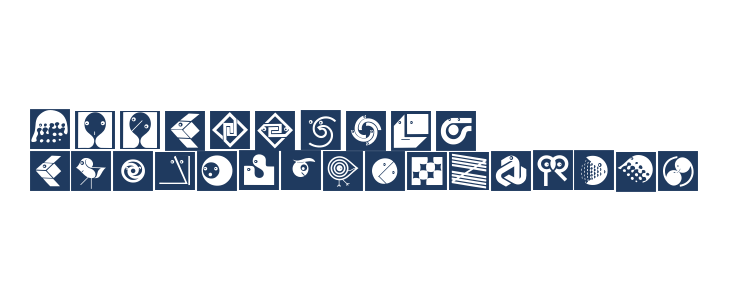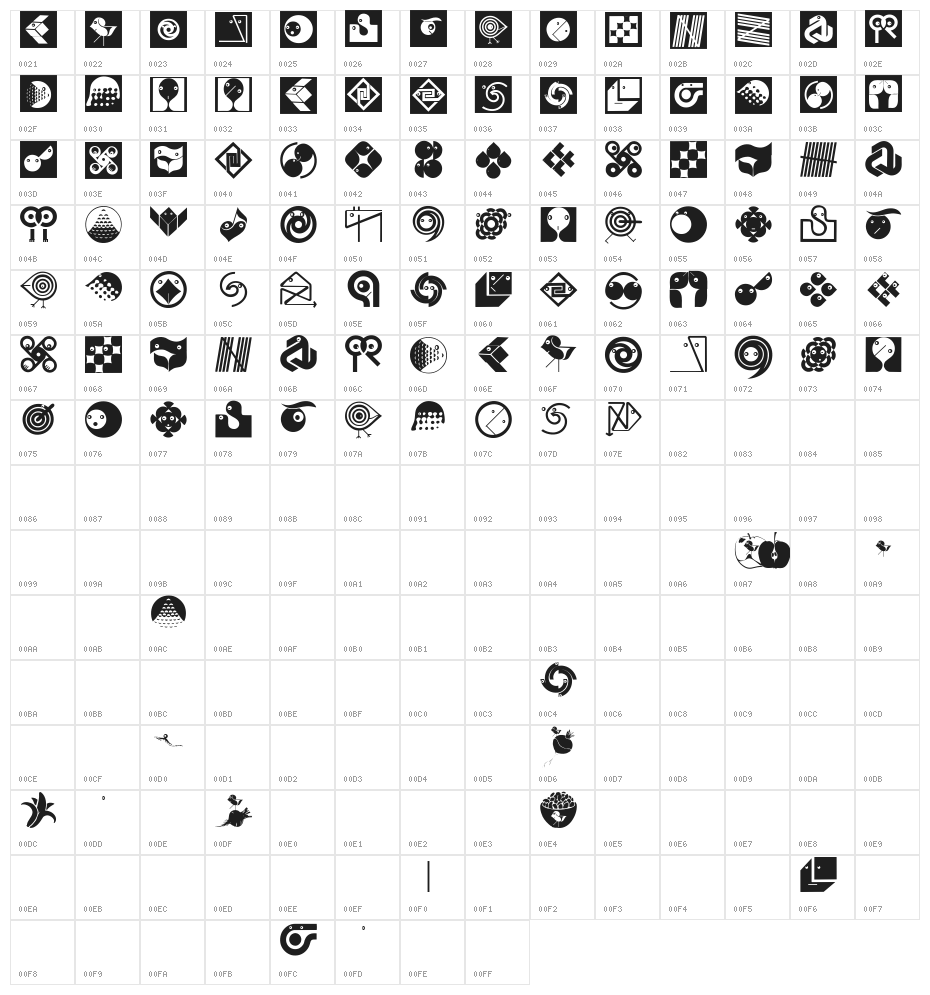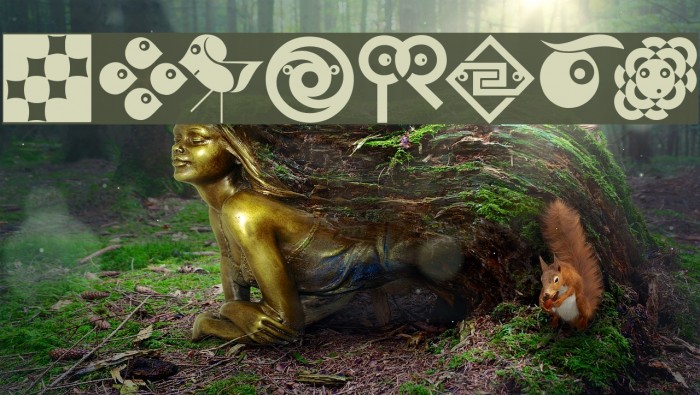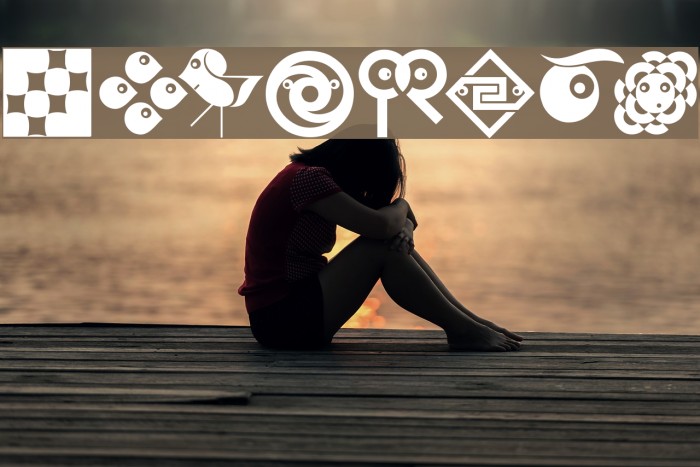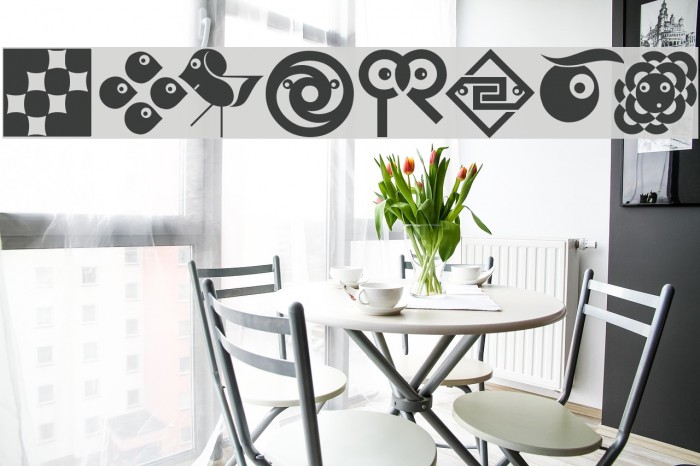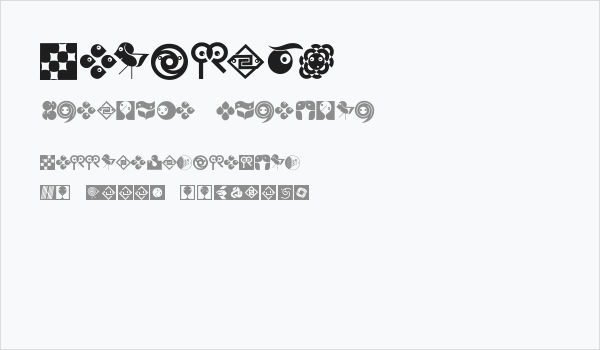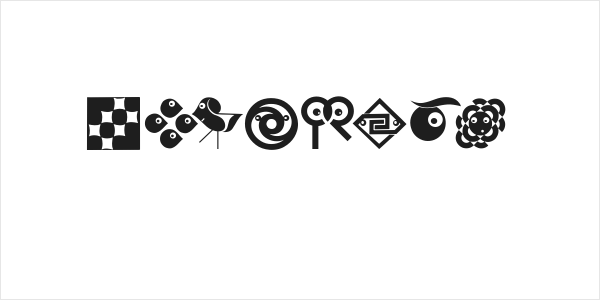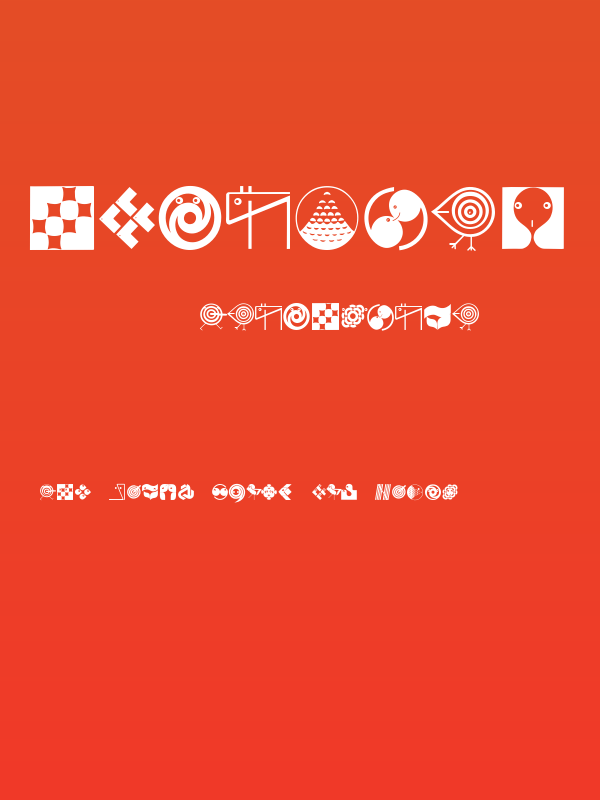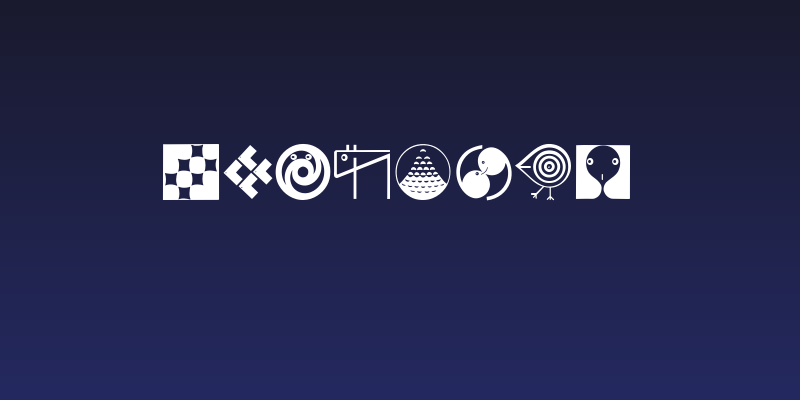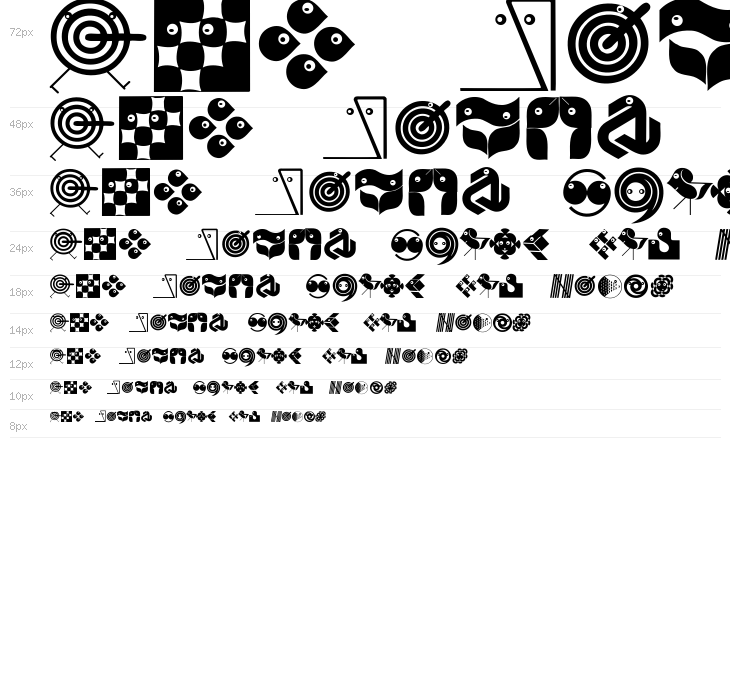
Geoplays Font
Geoplays Description
This collection of symbols features a highly decorative and abstract style, with each character resembling a unique geometric or artistic design. The symbols incorporate a variety of shapes including circles, squares, and intricate patterns, often combining multiple elements into a single cohesive form. The designs are bold and visually striking, utilizing high contrast between black and white to create a dramatic effect. Each symbol appears to be a standalone piece of art, making them suitable for creative and artistic projects that require a distinctive and eye-catching aesthetic.
| Use Case | Logos, Artistic compositions, Branding |
| Proposed Projects | Ideal for use in graphic design projects, logos, branding, and artistic compositions where a unique and creative touch is desired. |